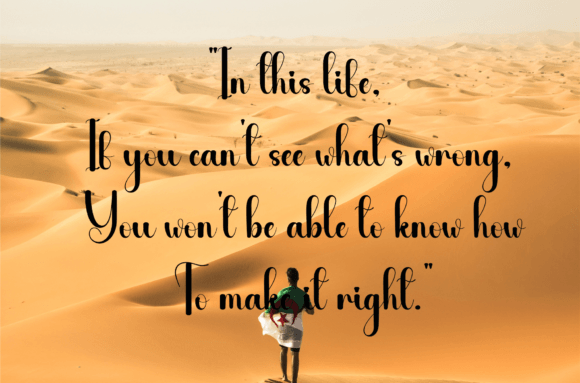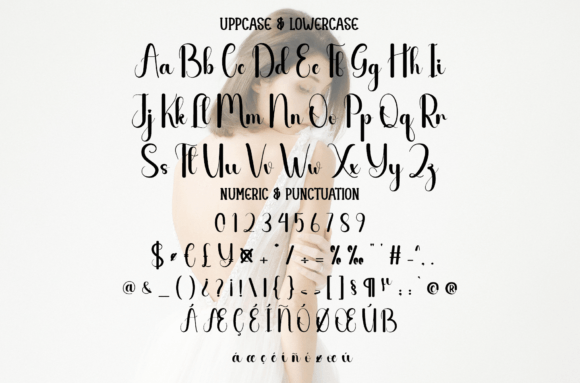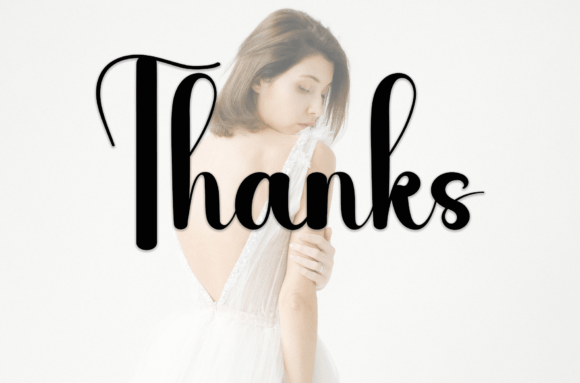
Discover the Charm of Cloudia Font: A Sweet and Friendly Handwritten Font
Are you looking for a font that can add a touch of warmth and personality to your designs? Look no further than Cloudia Font, a sweet and friendly handwritten font that’s perfect for creating beautiful wedding invitations, cards, and other designs that require a fun and playful touch.
What Makes Cloudia Font So Special?
Cloudia Font is a fresh and neat handwritten font that’s designed to bring a sense of joy and approachability to your designs. Its sweet and friendly style makes it ideal for a variety of creative projects, from wedding invitations and birthday cards to social media graphics and blog posts.
Key Features of Cloudia Font
- Sweet and Friendly Style: Cloudia Font has a warm and inviting style that’s perfect for creating designs that require a personal touch.
- Handwritten with Love: This font is carefully crafted to mimic the look and feel of handwritten text, giving your designs a unique and personal feel.
- Fresh and Neat: Cloudia Font is designed to be clean and easy to read, making it perfect for use in a variety of design projects.
- Versatile and Fun: Whether you’re creating wedding invitations, birthday cards, or social media graphics, Cloudia Font is the perfect choice for adding a touch of whimsy and fun to your designs.
Cloudia Font is a versatile font that’s perfect for designers and crafters who want to add a personal touch to their creations. Whether you’re creating digital designs or handmade crafts, this font is sure to inspire your creativity and bring a smile to your face.
Ideas for Using Cloudia Font
- Wedding Invitations: Use Cloudia Font to create beautiful and unique wedding invitations that set the tone for a special day.
- Birthday Cards: Add a personal touch to your birthday cards with Cloudia Font, perfect for kids and adults alike.
- Social Media Graphics: Use Cloudia Font to create fun and engaging social media graphics that showcase your personality and style.
- Blog Posts: Add a touch of whimsy to your blog posts with Cloudia Font, perfect for lifestyle, fashion, and beauty bloggers.
Tips for Getting the Most Out of Cloudia Font
- Experiment with Colors: Cloudia Font looks great in a variety of colors, so don’t be afraid to experiment and find the perfect hue for your design.
- Mix and Match: Combine Cloudia Font with other fonts and design elements to create a unique and eye-catching design.
- Play with Size: Cloudia Font looks great in a range of sizes, from small and delicate to large and bold.
Cloudia Font is a sweet and friendly handwritten font that’s perfect for designers and crafters who want to add a personal touch to their creations. With its fresh and neat style, this font is ideal for a variety of design projects, from wedding invitations and birthday cards to social media graphics and blog posts. So why wait? Download Cloudia Font today and start creating beautiful and unique designs that showcase your personality and style!